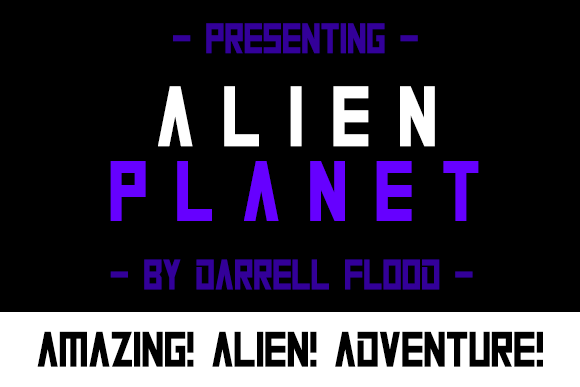
Alien Planet
Alien Planet Font
Alien Planet is a modern, angular, sci-fi font. This sans serif display font is perfect for high impact futuristic settings and space themes!
*Note: Font should be displayed using spaces for extra impact, like A L I E N P L A N E T